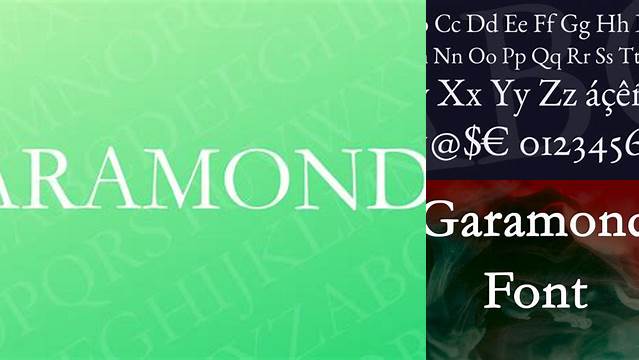
Garamond Fonts: A Designer's Guide To Free Options
Introduction to Garamond Fonts
Hey guys! Let's dive into the world of Garamond, one of the most timeless and elegant font families in graphic design. If you're looking for a typeface that exudes sophistication and readability, Garamond is your go-to choice. From books to branding, this font has made its mark across various mediums, and for good reason. Originating in the 16th century, Garamond has a rich history, with its classic design rooted in the work of Parisian engraver Claude Garamond. Over the centuries, numerous adaptations and interpretations have been created, making it a versatile option for designers today. When you talk about Garamond fonts, you're talking about a legacy of typographic excellence. Its enduring appeal lies in its graceful letterforms, balanced proportions, and exceptional readability. Whether you're working on a print project or a digital design, Garamond brings a touch of class and professionalism that few other fonts can match. The variations available today allow for a wide range of applications, ensuring that you can find the perfect Garamond for your specific needs. Understanding the nuances of Garamond's design and history will help you appreciate its beauty and use it effectively in your projects. This font isn't just a typeface; it's a piece of design history. It's a testament to the craftsmanship of early typographers and a reminder of the enduring power of good design. In the following sections, we'll explore the various aspects of Garamond, including its history, characteristics, best uses, and where to find it for free. So, stick around and let's get to know this amazing font family better!
History and Evolution of Garamond
Okay, history buffs, let's journey back in time to explore the fascinating story of Garamond. This font family’s roots are deeply embedded in the history of typography, tracing back to the 16th century. It all began with Claude Garamond, a Parisian engraver, who based his typeface on the work of Venetian printer Aldus Manutius and his punchcutter Francesco Griffo. Claude Garamond’s original designs were celebrated for their clarity, elegance, and readability, quickly becoming a favorite among printers and publishers. These early Garamond fonts were crafted with meticulous attention to detail, reflecting the humanistic style of the Renaissance. The influence of calligraphy is evident in the flowing lines and balanced forms, which give Garamond its distinctive character. After Claude Garamond's death, his work was continued by other typographers, including Jean Jannon, whose versions are often mistaken for the original Garamond. Jannon’s adaptations, which were created in the 17th century, introduced subtle changes to the design, adding a unique flavor to the Garamond legacy. Over the centuries, Garamond has been revived and reinterpreted numerous times, each iteration bringing its own spin to the classic design. From the Monotype Garamond to Adobe Garamond, each version captures the essence of the original while adapting it for modern use. The evolution of Garamond fonts reflects the changing technologies and aesthetic preferences of different eras. Today, digital versions of Garamond are widely available, making it accessible to designers around the world. Understanding this rich history helps you appreciate the font's design and legacy, ensuring you use it appropriately and effectively in your projects. Garamond is more than just a font; it's a symbol of typographic heritage and a testament to the enduring power of classic design. So, next time you use Garamond, remember the story behind it and the generations of typographers who have contributed to its legacy.
Key Characteristics of Garamond Fonts
Now, let's get into the nitty-gritty and talk about what makes Garamond fonts so special. The key characteristics of Garamond are what give it its unique charm and timeless appeal. One of the most notable features is its elegant and refined appearance. Garamond exudes a sense of sophistication and grace, making it a perfect choice for projects that require a touch of class. The letterforms are beautifully balanced, with a harmonious blend of thick and thin strokes. This balance contributes to its exceptional readability, making it easy on the eyes even in long passages of text. The serifs, those little feet at the end of the strokes, are another defining characteristic. In Garamond, the serifs are sharp and well-defined, adding to the font's overall elegance and formality. The ascenders (the parts of letters that extend above the x-height, like in 'h' and 'b') and descenders (the parts that extend below the baseline, like in 'g' and 'p') are relatively long, which enhances the font's visual appeal and readability. Another important aspect of Garamond is its relatively small x-height, the height of the main body of the lowercase letters. This gives the font a slightly more compact and refined look. When you look at different versions of Garamond, you'll notice subtle variations in these characteristics. For example, some versions have a more pronounced contrast between thick and thin strokes, while others are more uniform. These variations allow you to choose the Garamond that best fits your specific needs and preferences. Understanding these key characteristics will help you appreciate the nuances of Garamond and use it effectively in your designs. It’s not just about picking a font; it’s about understanding its personality and how it can enhance your message. Garamond’s elegance, readability, and historical significance make it a standout choice for a wide range of applications.
Best Uses for Garamond in Graphic Design
Alright, designers, let's talk about where Garamond really shines. This font isn't just pretty; it's incredibly versatile! Knowing the best uses for Garamond can help you make smart choices in your graphic design projects. First and foremost, Garamond is a fantastic choice for body text. Its excellent readability makes it perfect for books, magazines, and other long-form content. The elegant letterforms ensure that reading is a pleasure, not a chore. Think about those beautifully typeset novels you've seen – chances are, Garamond was involved! Beyond books, Garamond is also a great option for academic papers and scholarly articles. Its classic and professional appearance lends an air of authority to your writing. Plus, its readability ensures that your ideas are communicated clearly and effectively. But Garamond isn't just for print. It can also work wonders in digital designs. Websites, e-books, and online articles can all benefit from Garamond's timeless elegance. Just be sure to choose a version that's optimized for screen use, as some versions may appear slightly different on digital devices. In the branding world, Garamond fonts can add a touch of sophistication to logos and marketing materials. It's particularly well-suited for brands that want to convey a sense of history, tradition, or elegance. Think luxury brands, high-end publications, and cultural institutions. Garamond's versatility also extends to print materials like business cards, letterheads, and brochures. Its professional and polished appearance makes a lasting impression, helping you stand out from the crowd. When it comes to headlines and titles, Garamond can be a good choice, but it's important to use it sparingly. Its elegance can sometimes feel a bit understated for bold, attention-grabbing headlines. However, for subheadings and smaller titles, Garamond adds a touch of class without overpowering the design. So, there you have it! Garamond’s versatility makes it a valuable tool in any designer's arsenal. Whether you're working on a print project, a digital design, or a branding campaign, Garamond can help you create a look that's both elegant and effective.
Where to Find Garamond Fonts for Free
Okay, budget-conscious designers, this section is for you! Finding Garamond fonts for free can be a bit of a treasure hunt, but trust me, it’s totally doable. There are some fantastic open-source options and free versions out there that can give you the Garamond look without breaking the bank. One of the best places to start is Google Fonts. While you won’t find the exact Garamond typeface there, you will find fonts that are Garamond-esque, meaning they share similar characteristics and aesthetic qualities. Fonts like Libre Baskerville or EB Garamond are excellent alternatives that capture the classic feel of Garamond. These fonts are free to use for both personal and commercial projects, making them a fantastic resource for designers on a budget. Another great option is to explore various font websites that offer free font downloads. Sites like Font Squirrel, DaFont, and UrbanFonts often have free fonts that are inspired by or similar to Garamond. Just be sure to check the licensing terms carefully before using any free font in a commercial project. Some fonts may have restrictions on how they can be used, so it’s always best to double-check. Open-source font foundries are another excellent resource for finding free Garamond alternatives. These foundries are communities of designers who create and share fonts for free. They often offer high-quality typefaces that are perfect for professional design projects. When searching for free Garamond fonts, keep in mind that the quality can vary. Some free fonts may not be as polished or complete as their commercial counterparts. However, with a little bit of searching, you can find some real gems. Don't be afraid to experiment with different options and see what works best for your project. Remember, using a free Garamond alternative doesn't mean you're sacrificing quality. Many of these fonts are beautifully designed and perfectly suitable for a wide range of applications. So, go ahead and explore the world of free fonts – you might just discover your new favorite typeface!
Popular Garamond Font Alternatives
Alright, let's talk alternatives! Sometimes you need the Garamond vibe but want something a little different, or maybe you're working on a project where the original isn't quite the perfect fit. No worries, guys, there are plenty of Garamond font alternatives that can give you that elegant, readable feel. One of the most popular alternatives is EB Garamond. This is an open-source revival of Claude Garamond’s original designs, and it's absolutely stunning. EB Garamond captures the classic elegance of Garamond while also being optimized for modern use. It’s a fantastic choice for body text and headlines alike. Another excellent alternative is Libre Baskerville. This font is inspired by the work of John Baskerville, another legendary typographer, and it shares many of the same qualities as Garamond. Libre Baskerville is highly readable, elegant, and works beautifully in both print and digital designs. If you're looking for something with a slightly more modern feel, consider Crimson Text. This font was designed specifically for body text and has a lovely, warm character. It's a great alternative to Garamond for books, articles, and other long-form content. For those who need a font that performs well on screen, Arvo is a solid choice. While it's a slab-serif font (meaning the serifs are thicker and more block-like), it still retains some of the elegance and readability of Garamond. Arvo is especially well-suited for web design and digital publications. And let's not forget Palatino. This font, designed by Hermann Zapf, is another classic serif typeface that shares many similarities with Garamond. Palatino has a slightly more robust feel than Garamond, making it a good option for projects where you want a bit more weight and presence. Exploring these alternatives can help you expand your typographic palette and find the perfect font for your project. Each of these fonts offers a unique take on the classic Garamond style, giving you plenty of options to choose from. So, don't be afraid to experiment and see which one resonates with you!
Tips for Using Garamond Effectively
Okay, now that you know all about Garamond, let's talk strategy. Using a font well is just as important as choosing the right one. Here are some tips to help you use Garamond effectively in your designs. First up, think about contrast. Garamond is an elegant font, so pairing it with other typefaces requires a bit of finesse. For headlines, consider using a clean, sans-serif font to create a visual contrast. This can help your headlines stand out while maintaining a sense of balance and sophistication. Fonts like Helvetica, Arial, or Open Sans can be great companions to Garamond. In body text, Garamond really shines. However, it's important to pay attention to your leading (the space between lines) and kerning (the space between letters). Proper leading and kerning can significantly enhance readability, especially in longer passages of text. A general rule of thumb is to use a leading that's slightly larger than your font size. For kerning, make sure the spacing between letters is consistent and visually appealing. Another tip is to avoid overusing Garamond. While it's a beautiful font, using it for every element in your design can make things feel a bit monotonous. Mix it up with other typefaces to create visual interest and hierarchy. Think about using Garamond for body text and subheadings, but opting for a different font for headlines or captions. When using Garamond in digital designs, be mindful of how it renders on different screens and devices. Some versions of Garamond may appear slightly different on screen than they do in print. Consider using a version that's optimized for web use, or test your designs on various devices to ensure everything looks crisp and clear. Finally, don't be afraid to experiment with different weights and styles within the Garamond family. Garamond comes in a variety of weights, from light to bold, as well as italic and condensed versions. Using these variations can help you create visual hierarchy and add emphasis to your designs. So, there you have it! These tips will help you make the most of Garamond and create designs that are both beautiful and effective. Remember, typography is an art, so have fun and let your creativity flow!
Conclusion: The Enduring Appeal of Garamond
So, guys, we've reached the end of our deep dive into the world of Garamond fonts. It's pretty clear why this typeface has stuck around for centuries, right? Garamond isn't just a font; it's a piece of design history, a testament to the power of elegant and readable typography. From its origins in 16th-century Paris to its current status as a go-to choice for designers worldwide, Garamond has proven its versatility and timeless appeal. Whether you're working on a book, a website, a logo, or any other design project, Garamond brings a touch of sophistication and class that few other fonts can match. Its beautiful letterforms, balanced proportions, and exceptional readability make it a joy to use and a pleasure to read. We've explored the history of Garamond, its key characteristics, and the best ways to use it effectively. We've also looked at some fantastic alternatives for those times when you need a slightly different flavor or a free option. The key takeaway here is that Garamond is more than just a pretty face. It's a workhorse font that can handle a wide range of design challenges. Its elegance makes it perfect for formal and high-end projects, while its readability ensures that your message is always clear and impactful. As you continue your design journey, remember the lessons we've learned about Garamond. Consider its strengths, its weaknesses, and how it can best serve your creative vision. And don't be afraid to experiment! Typography is all about finding the right voice for your message, and Garamond is a voice that has stood the test of time. So, go forth and create with Garamond, knowing that you're working with a true classic. Thanks for joining me on this typographic adventure. Keep designing, keep exploring, and keep making beautiful things!